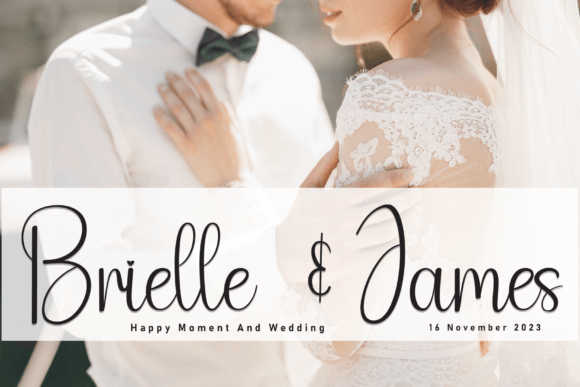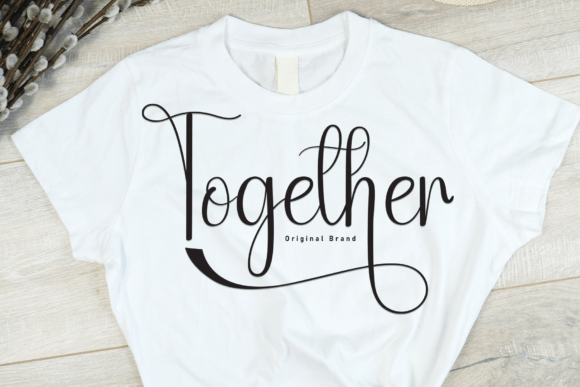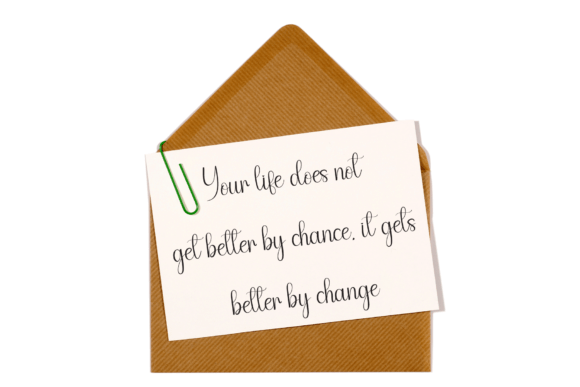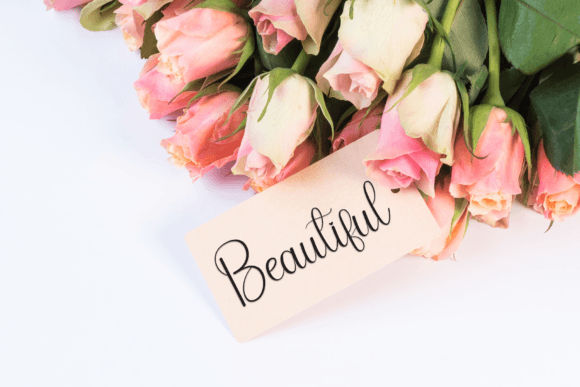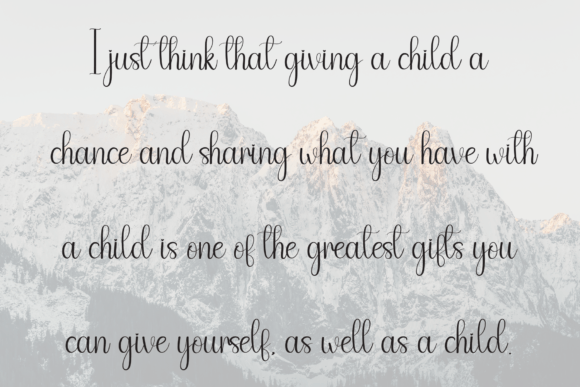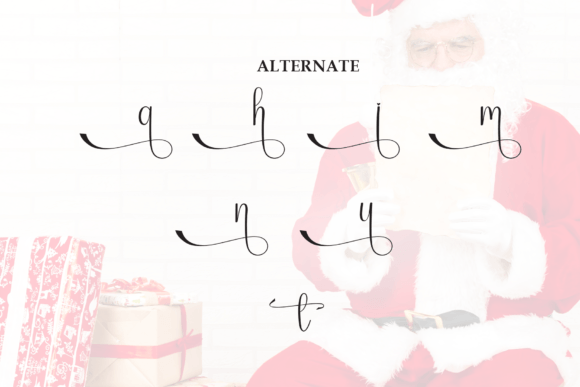
Introduction to Santa Peaceful Font
As a designer, have you ever found yourself stuck in a creative rut, struggling to find the perfect font to bring your project to life? I know I have. That’s why I’m excited to share with you a hidden gem in the world of fonts: the Santa Peaceful Font. This adorable, handwritten display font is the perfect solution for adding a touch of whimsy and personality to your designs.
Whether you’re creating a wedding invitation, a birthday card, or any other project that needs a fun and playful touch, the Santa Peaceful Font is an excellent choice. Its high-quality design and transparent background make it a versatile resource for designers of all levels. And the best part? It’s available for free download, making it a valuable addition to any design arsenal.
Key Features of Santa Peaceful Font
- Perfect for festive and holiday-themed designs, including Christmas and New Year’s projects
- Unique, hand-drawn design elements and ornaments for added visual interest
Honest Review: Santa Peaceful Font
I recently stumbled upon the Santa Peaceful Font while searching for design resources for a holiday-themed project. I must say, it’s a great find! ✨ The font is free to download and offers a high quality, transparent background that makes it perfect for creative projects.
Here are some of the things that work well with this font:
- Its soothing and peaceful feel, perfect for winter or holiday-themed designs.
- The transparent background makes it easy to layer over other design elements.
- It’s a great resource for designers who need a unique and high-quality font for their projects.
- The font may not be suitable for all types of designs, such as bold or edgy projects.
Overall, I’m impressed with the Santa Peaceful Font. It’s a great addition to any designer’s resource library, and it’s free to download to boot! If you’re working on a holiday-themed project, I highly recommend giving it a try. ✨
Tips for Getting the Most Out of Santa Peaceful Font
Use Santa Peaceful Font on a transparent background to create a clean and minimalist design. Experiment with different font sizes and colors to add visual interest to your design. You can also use it in combination with other design resources, such as graphics and images, to create a unique and eye-catching design.
Santa Peaceful Font is a versatile design resource that can be used in a variety of creative projects, including: holiday cards, social media graphics, presentations, and documents. It’s also a great resource for designers who want to create high-quality, professional-looking designs without breaking the bank (it’s a free download!).